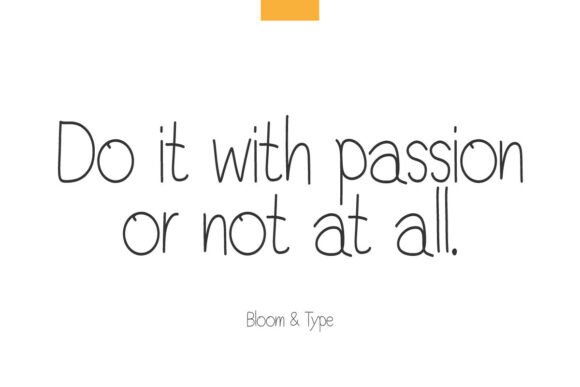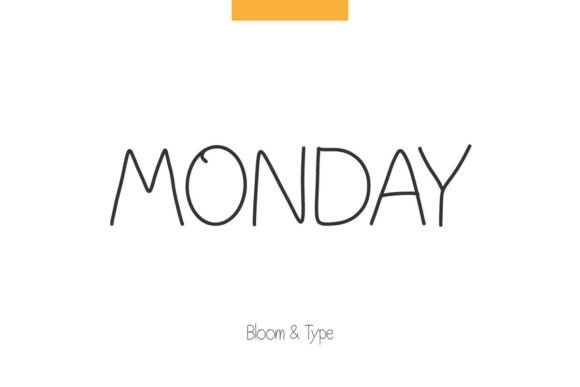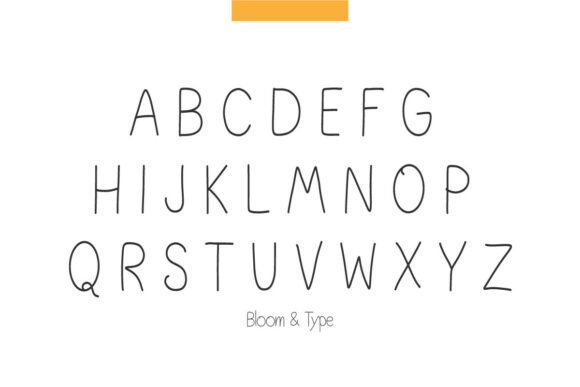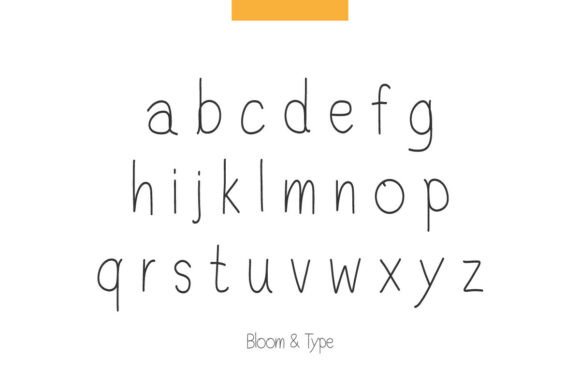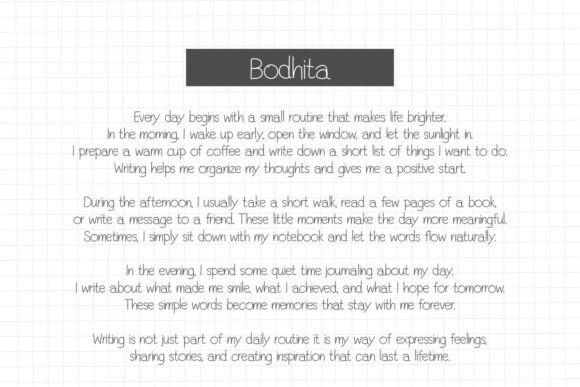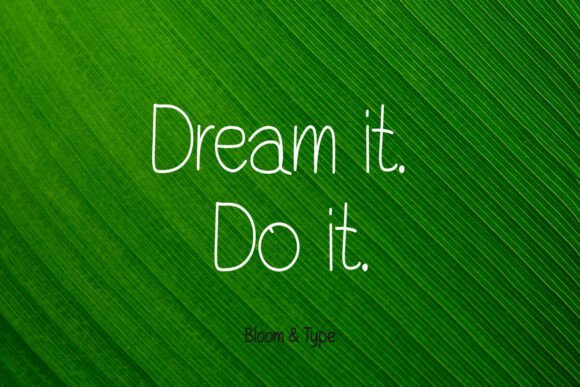
The Bodhita Font: A Minimalist Handwritten Marvel
I still remember the design project that led me to discover the Bodhita font. I was working on a lifestyle branding campaign for a client who wanted a clean, yet creative look. I had spent hours scrolling through font libraries, but nothing seemed to fit the bill. That was until I stumbled upon Bodhita – a minimalist handwritten font that perfectly balanced simplicity, clarity, and modern charm.
- ✨ The perfect blend of simplicity and elegance
- ✅ Thin lines and soft rounded edges that convey a lighthearted yet sophisticated personality
- 💫 Airy and well-spaced letterforms that bring calmness and elegance to any design
- 🎨 Versatile and suitable for a wide range of projects, from quotes and lifestyle branding to stationery and social media
While Bodhita is an excellent font, there are a few things to keep in mind:
- 🤔 Some users may find the font too delicate for certain design applications
- ⚠️ Limited availability of stylistic alternates, which may limit creative flexibility
The Backstory Behind Bodhita
Bodhita was designed with the intention of creating a font that embodies simplicity, elegance, and a touch of playfulness. The designer aimed to craft a typeface that would be versatile and suitable for a wide range of creative applications. By combining thin lines, tall structure, and soft rounded edges, Bodhita achieves a unique balance of modern charm and approachability.
Q: What makes Bodhita a great choice for lifestyle branding?
A: Bodhita’s clean, elegant design and airy letterforms make it an excellent choice for lifestyle branding. The font’s modern charm and approachability help create a strong brand identity.
Q: Can I use Bodhita for body text?
A: While Bodhita is a beautiful font, it’s best suited for headings and titles. Its delicate lines and thin strokes may not be suitable for body text, especially in smaller font sizes.
Q: Does Bodhita support OpenType features?
A: Yes, Bodhita supports OpenType features, including ligatures and stylistic alternates. This allows you to add creative flair to your designs and make the most of the font’s capabilities.
Q: Is Bodhita suitable for digital interfaces?
A: Yes, Bodhita’s clean design and legibility make it suitable for digital interfaces. Use it for website headers, social media graphics, and other digital applications where a clean and elegant look is desired.